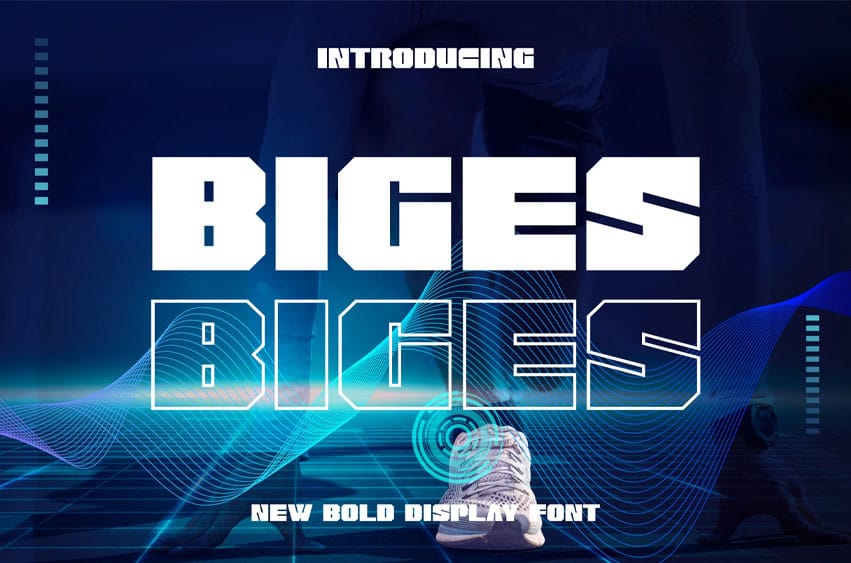
Biges Bold Font is a super thick typeface with more traditional letter shapes, making it perfect for creating (or recreating) the concise look of film poster production credits.
- Uppercase Characters
- Lowercase Characters
- Alternate All Characters
- Punctuation & Numbers